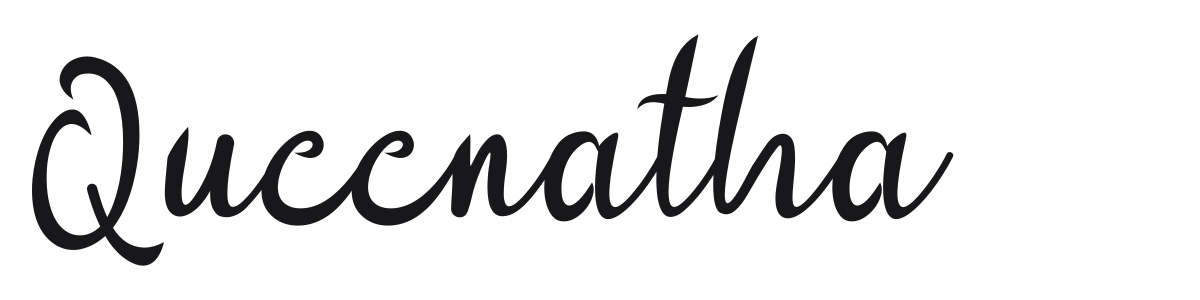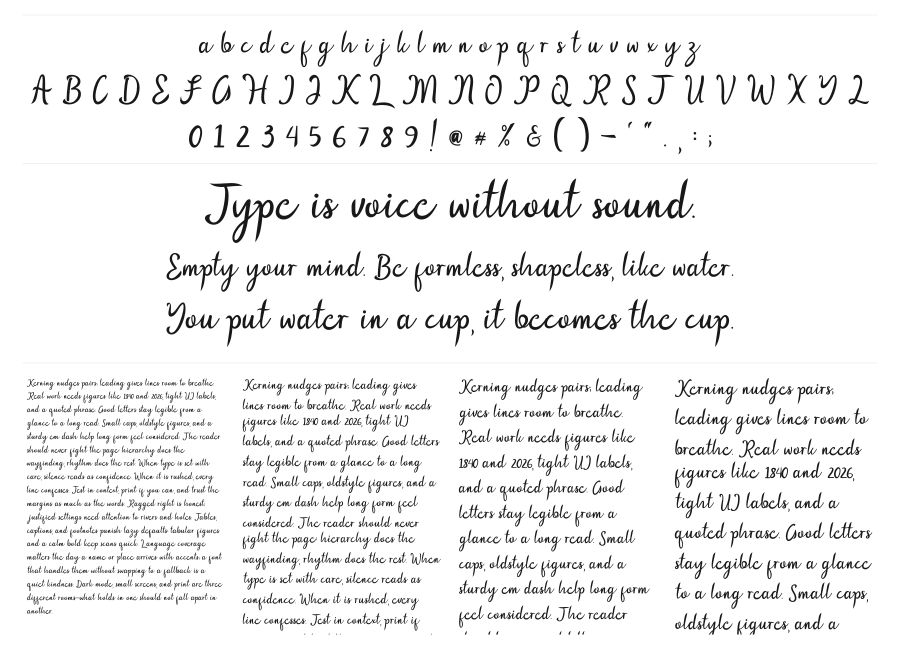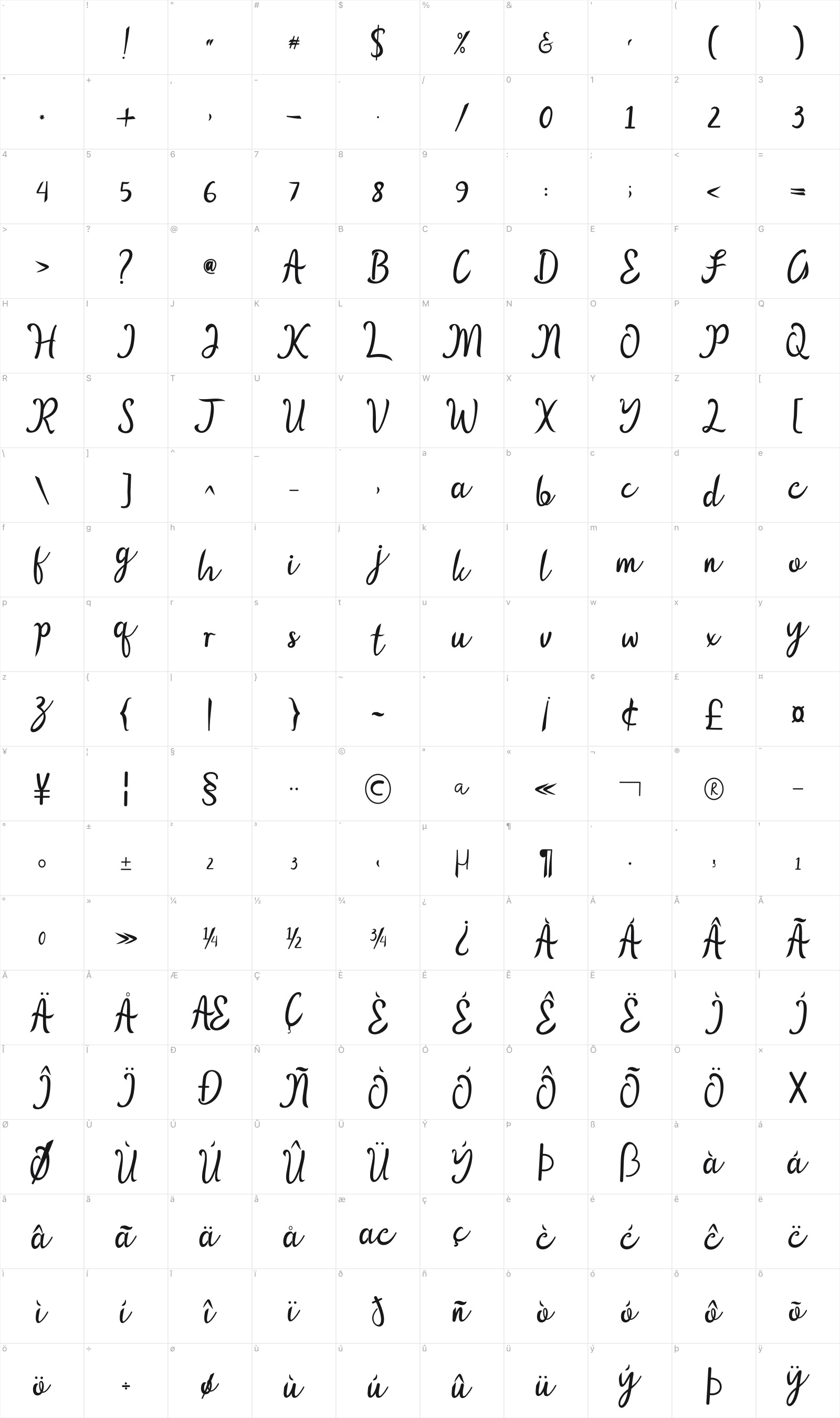
Queenatha
Queenatha is a casual connected script with a warm, handwritten personality drawn by Yogaletter. The flowing strokes and lively baseline rhythm give it an effortless, natural feel that works well across branding, packaging, and editorial headlines. It strikes a balance between polished and personal without tipping into overly formal territory.